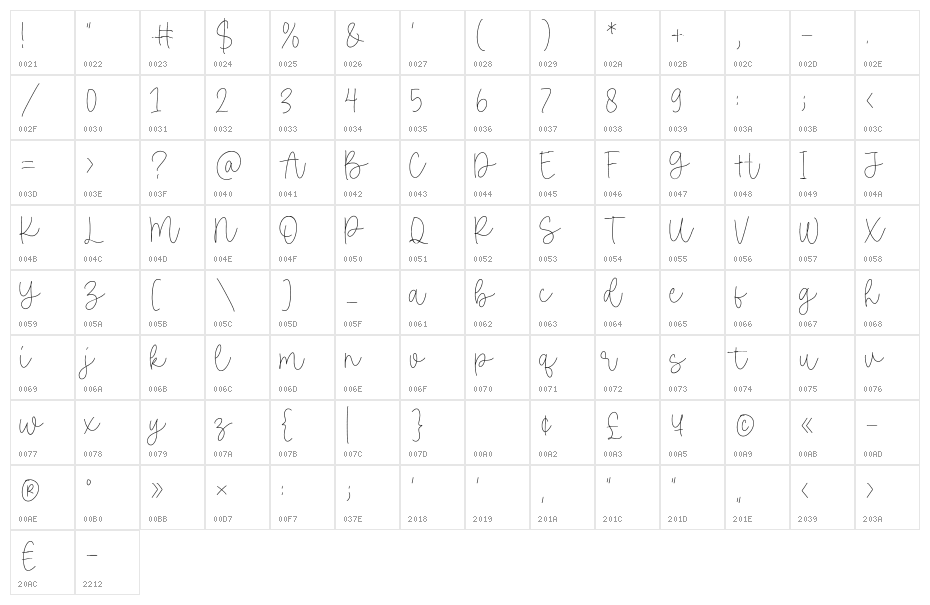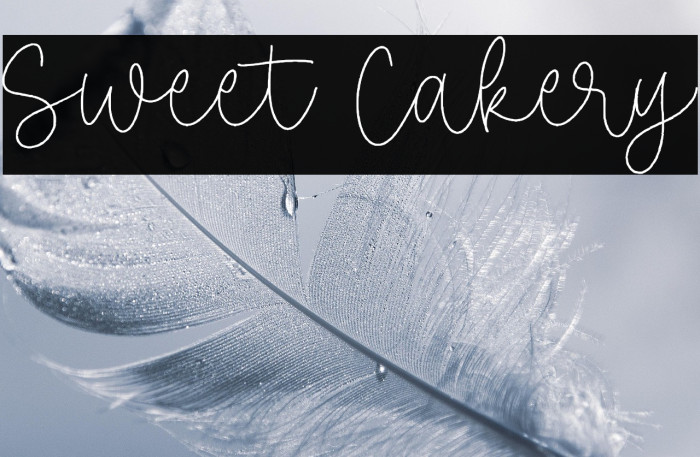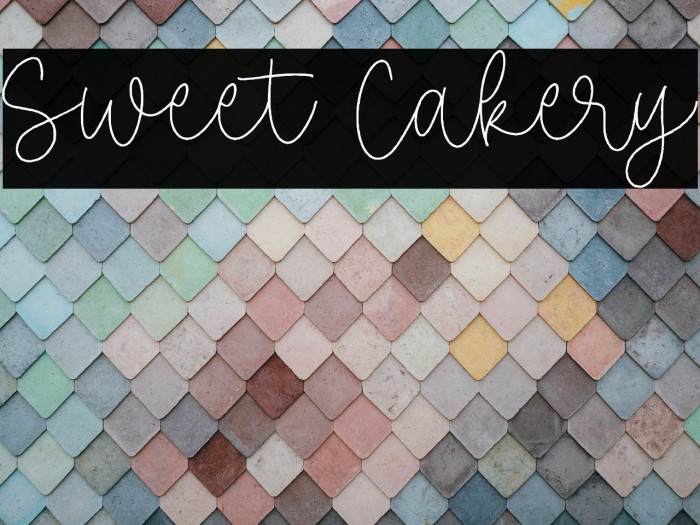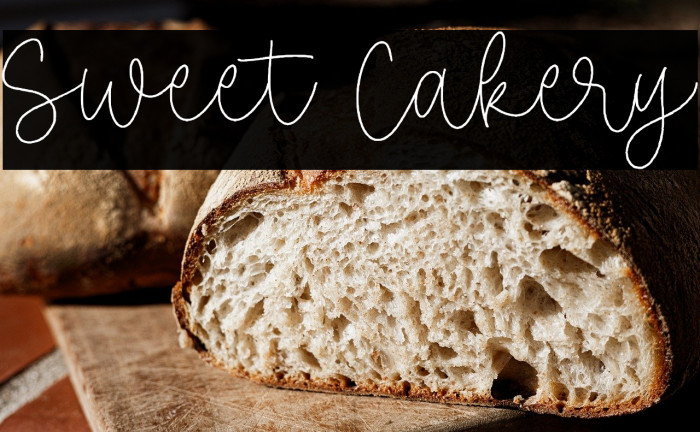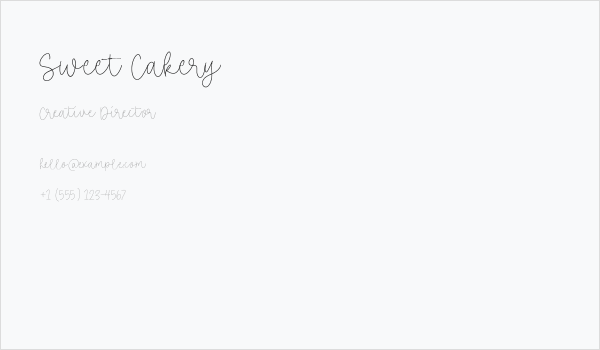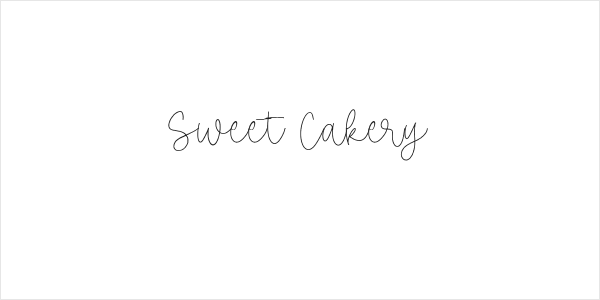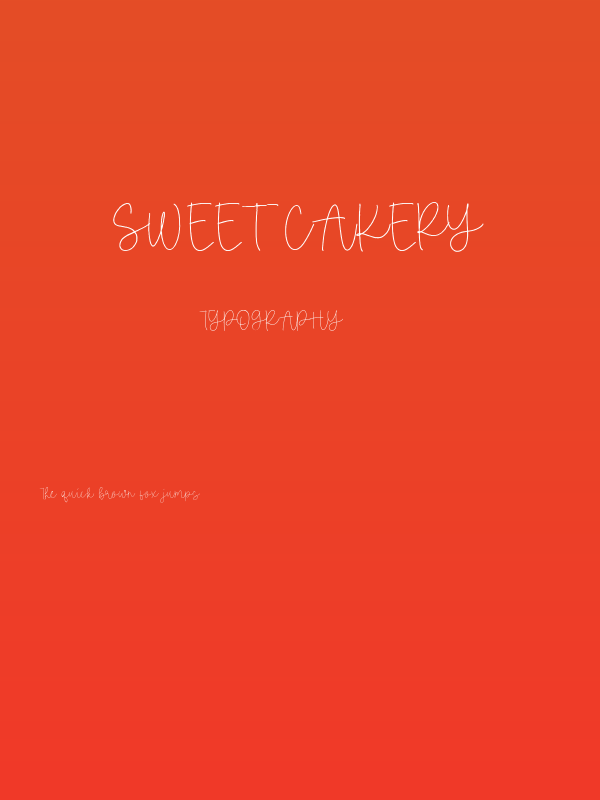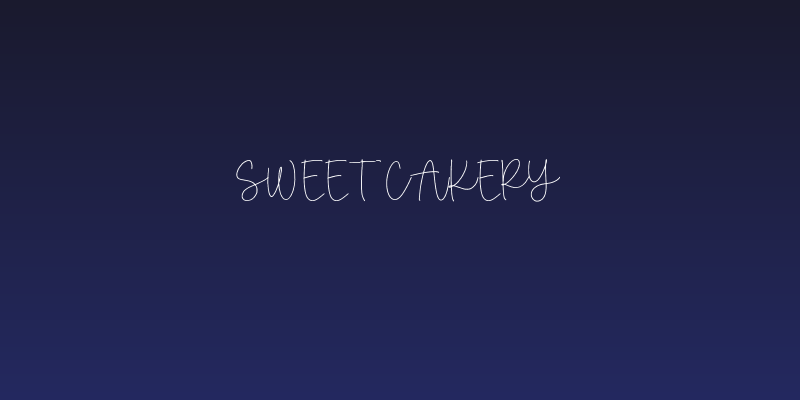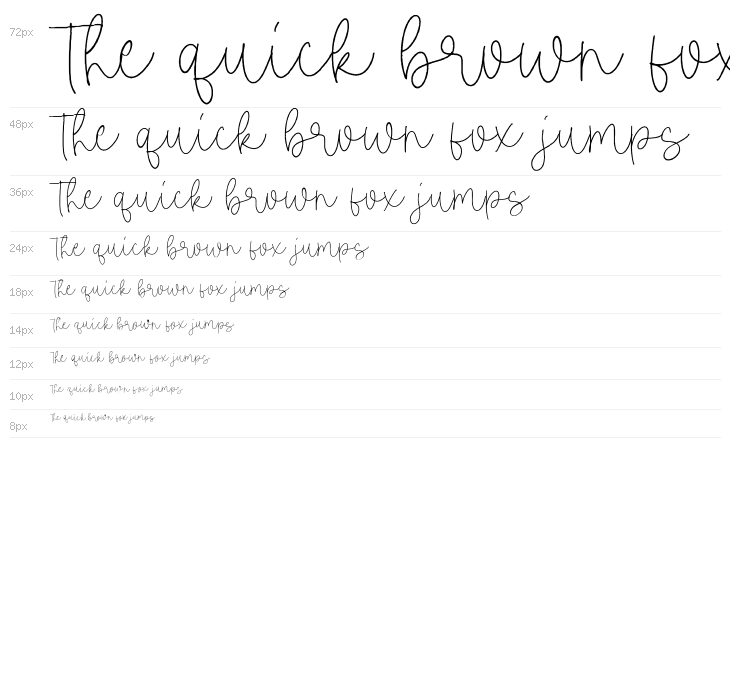
Sweet Cakery Font
Sweet Cakery Description
This font exudes a playful and whimsical charm, characterized by its flowing, cursive script style. The letters are interconnected, creating a seamless and elegant appearance. The strokes are consistent in width, providing a uniform look that enhances readability while maintaining a hand-drawn aesthetic. The uppercase letters are slightly taller than the lowercase, adding a touch of sophistication. The numbers and special characters are crafted with the same fluidity, ensuring a cohesive design throughout. This font is ideal for projects that require a personal touch, such as invitations, greeting cards, or branding for creative businesses.
| Overall Style | Whimsical |
| Proposed Projects | Ideal for invitations, greeting cards, and creative branding. |